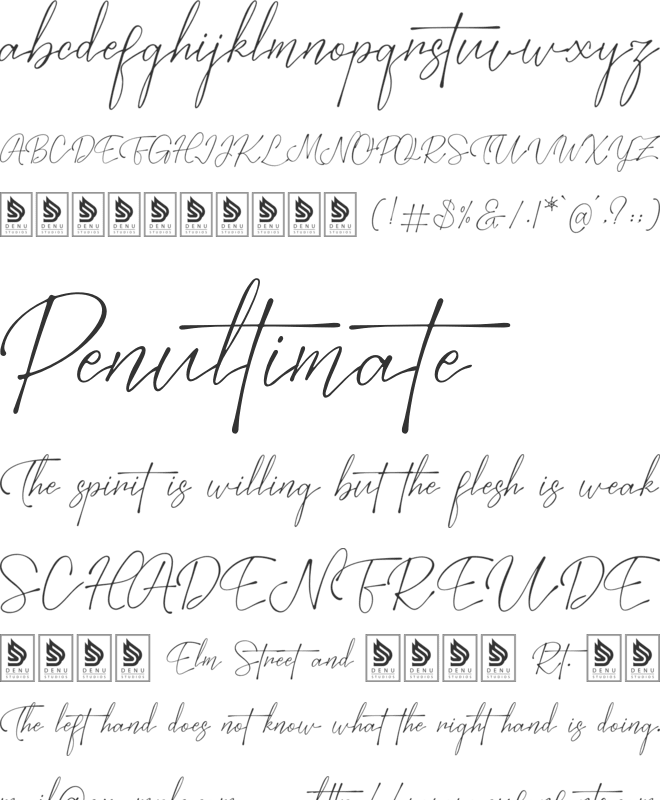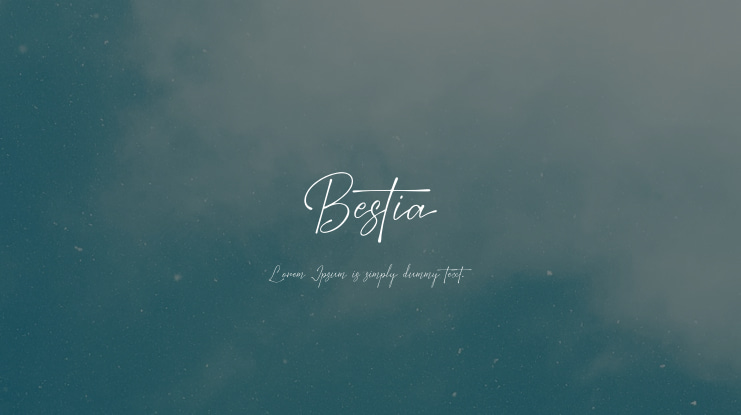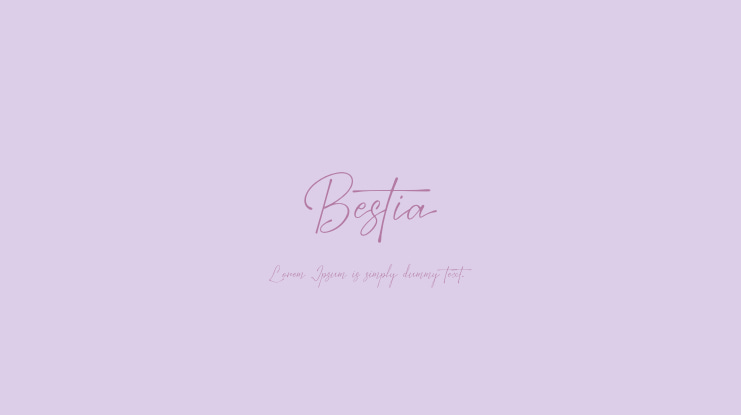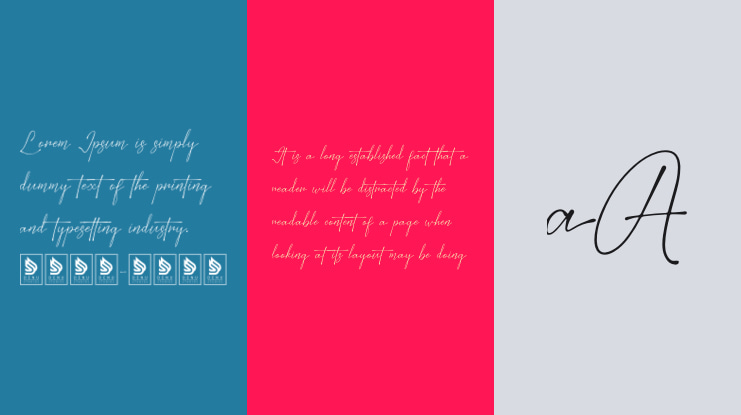
Bestia | Signature Font is a versatile font suitable for various projects such as logos, branding, homeware designs, product packaging, quotes, posters, t-shirts, and more, that require a touch of elegance and a signature script style.